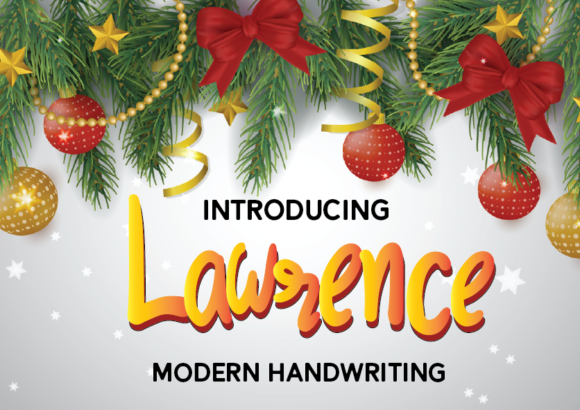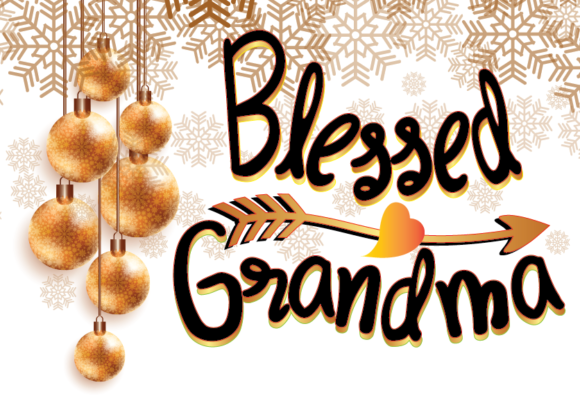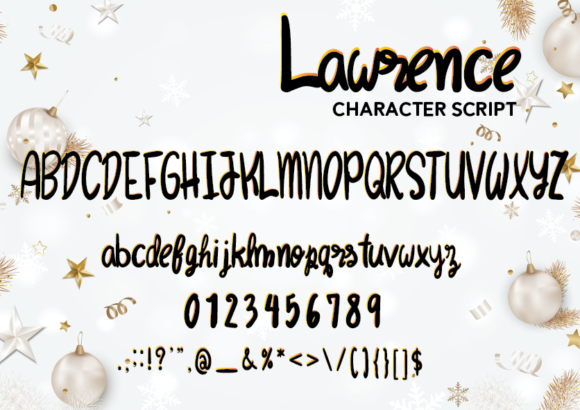
HomeScript FontsLawrence Font Script Fonts Lawrence Font FacebookXPinterestWhatsApp Lawrence Font Poster 2 Lawrence Font Poster 3 About Lawrence Font Lawrence is a friendly and modern script font with a unique style. Fall in love with its playful look & feel! DOWNLOAD NOW People also explored Warmth Font Starmagic Font Keisha Font Micelina Font Victoria Font Progex Font Sunshine Olivia Font Roboheimer Font Usa Spirit Font 278 0 TagsLawrence Font Previous articleGreenstone FontNext articleSean Font LEAVE A REPLY Cancel reply Comment: Please enter your comment! Name:* Please enter your name here Email:* You have entered an incorrect email address! Please enter your email address here Website: Save my name, email, and website in this browser for the next time I comment. Personal Use Free The Brighton Personal Use Free Read more about this font Token No 721 Personal Use Free Read more about this font Groomer Personal Use Free Read more about this font Alphakind Personal Use Free Read more about this font BLOG Best Fonts for YouTube Videos: Make Your Thumbnails Stand Out Best Fonts for YouTube Videos: Make Your Thumbnails Stand Out Choosing the right font can make a massive difference in how your YouTube videos perform.... How to Install and Use Fonts on Windows, macOS, and Web Projects Where to Buy American Fonts Online in 2024 How to Cut Any Font on Cricut: Convert a Font to SVG (Free)